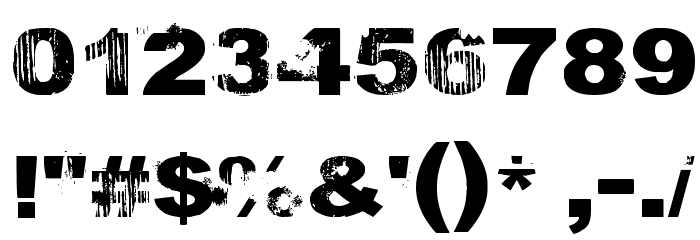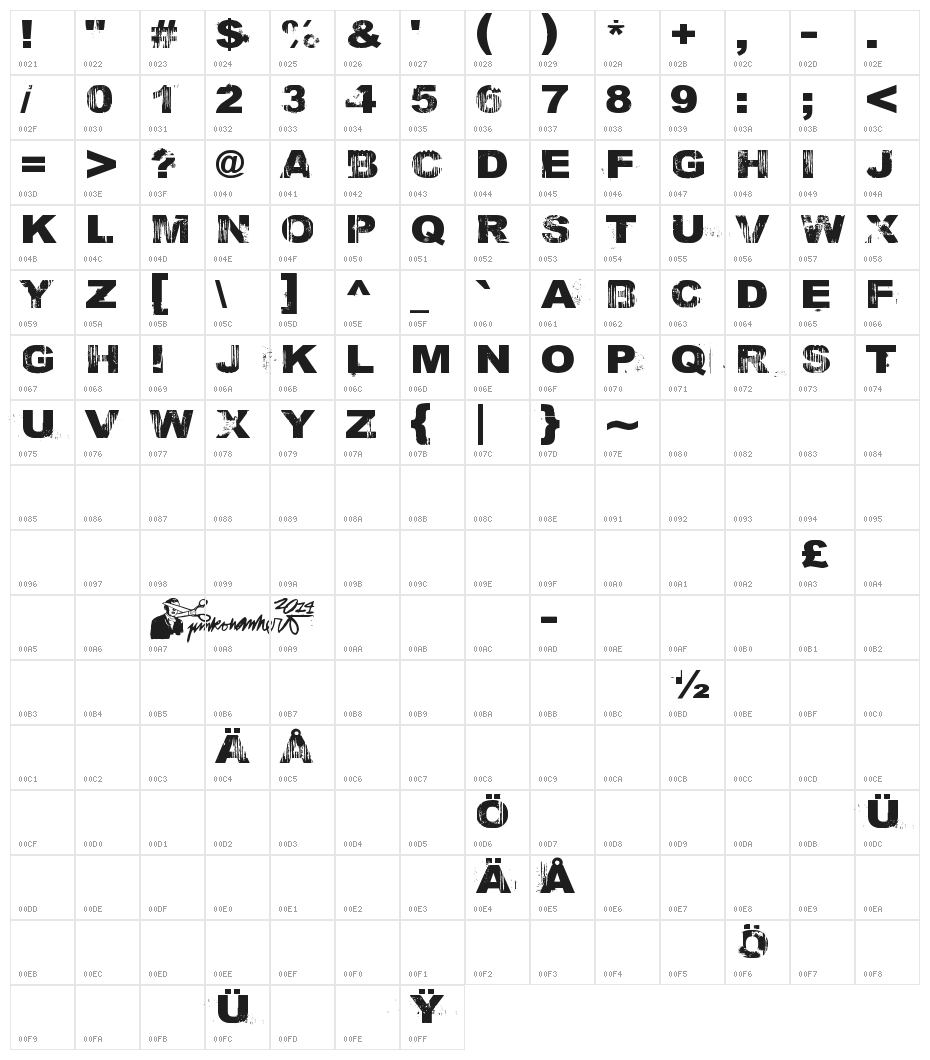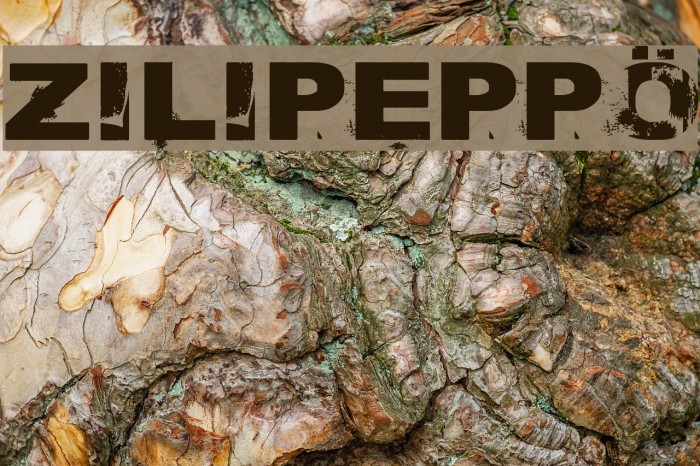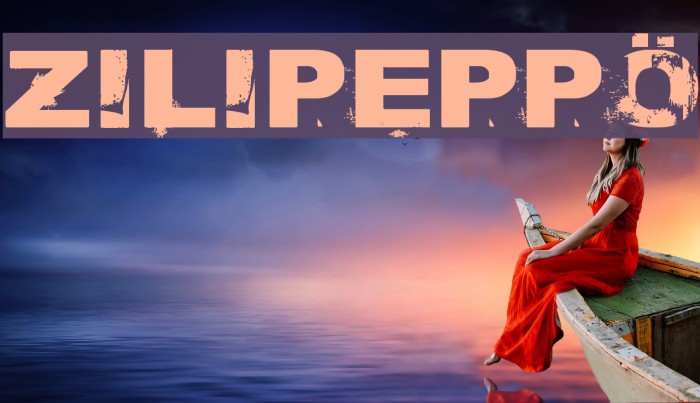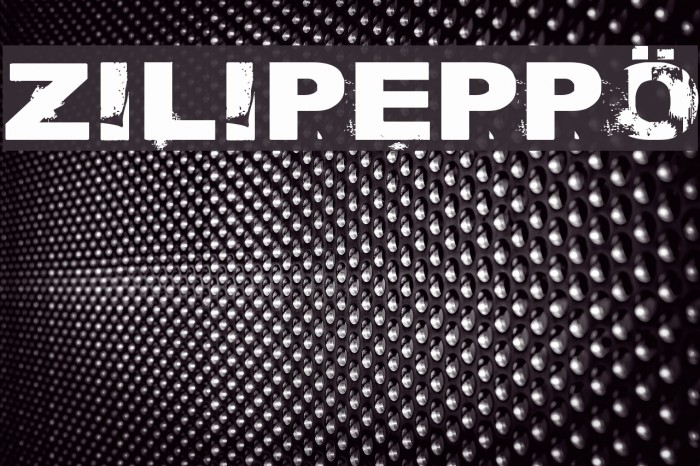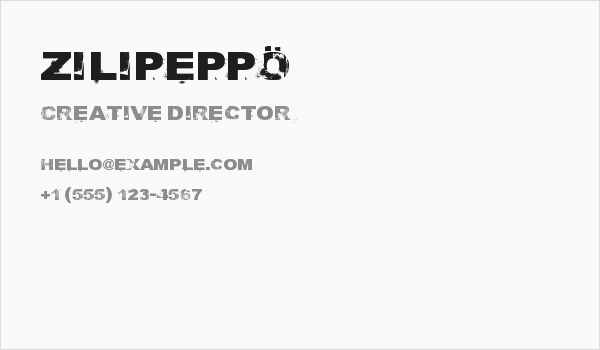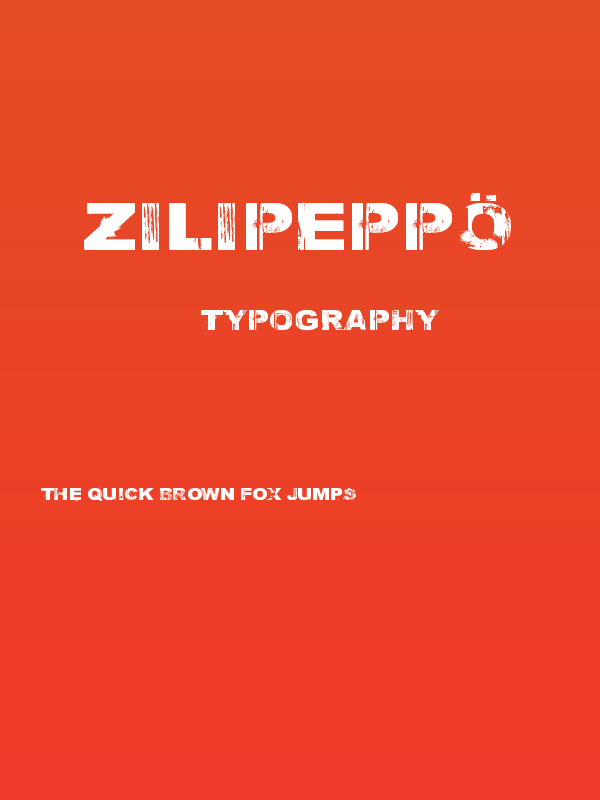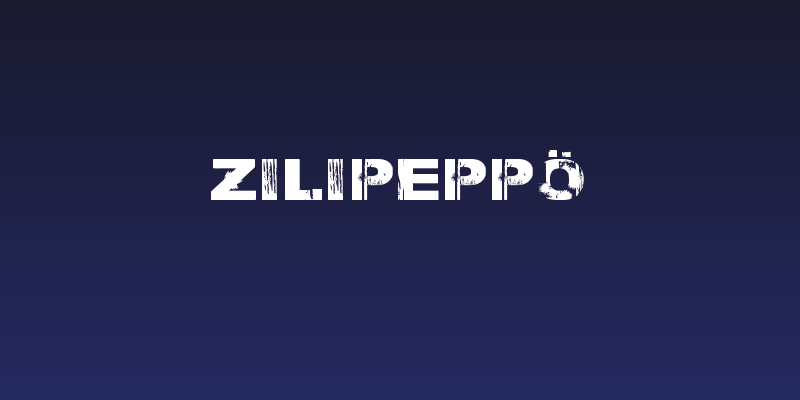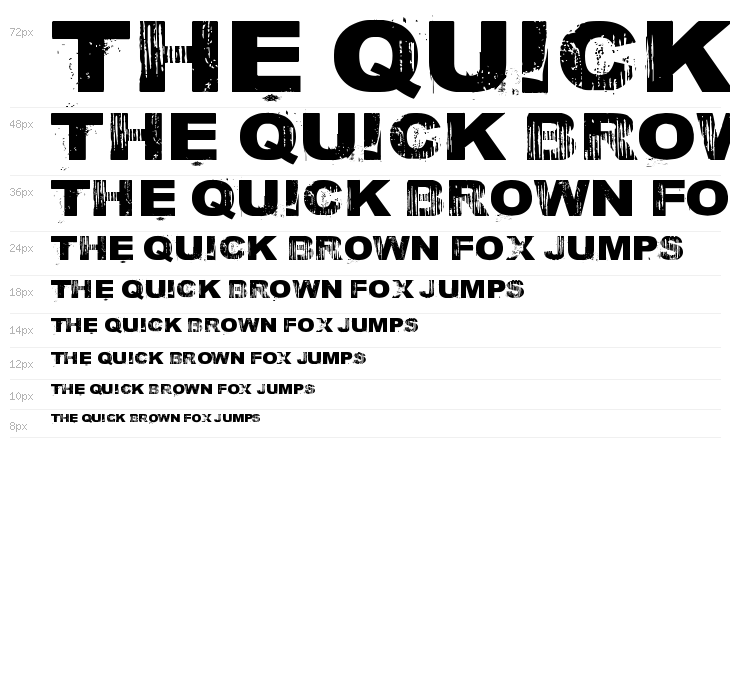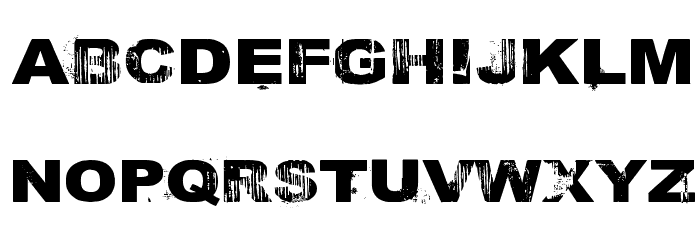
Zilipeppö Font
Zilipeppö Description
This font features a bold, distressed style with a grunge texture that gives it a rugged and worn appearance. The characters are uppercase and numerals, with a consistent weight that adds to its impactful look. The texture varies across each character, creating a unique, weathered effect that suggests a sense of history or decay. The font is ideal for projects that require a strong, edgy aesthetic, such as posters, album covers, or branding for alternative or rock-themed events. Its boldness ensures readability while the distressed details add visual interest.
| Overall Style | Grunge, Edgy |
| Proposed Projects | Ideal for posters, album covers, branding for alternative or rock-themed events. |